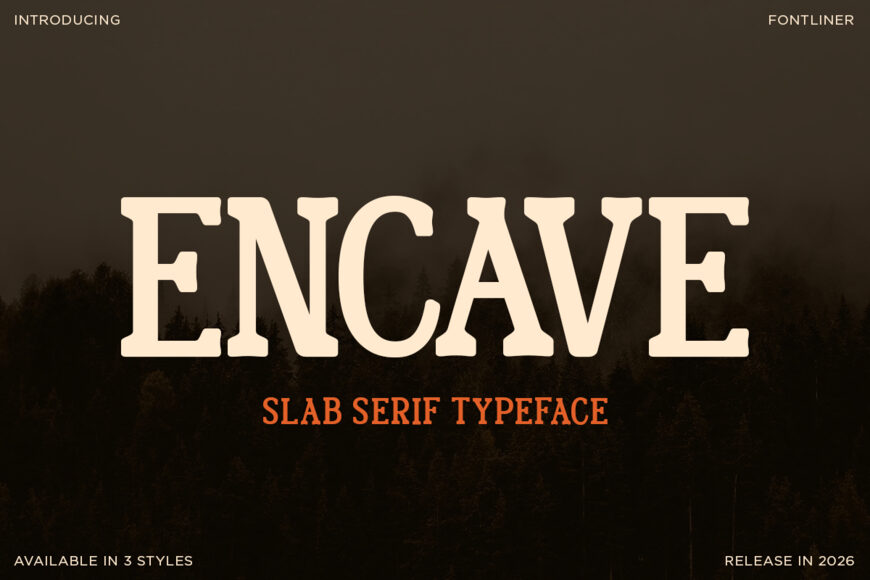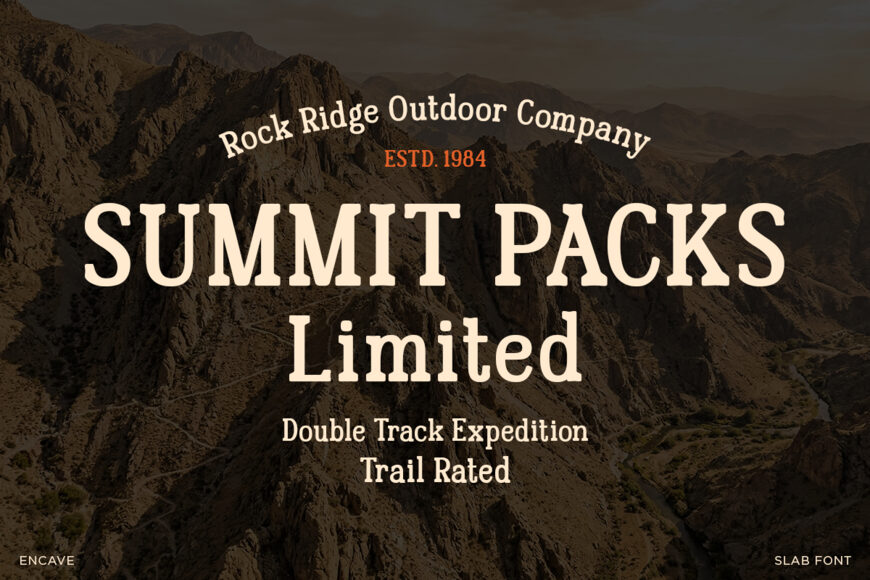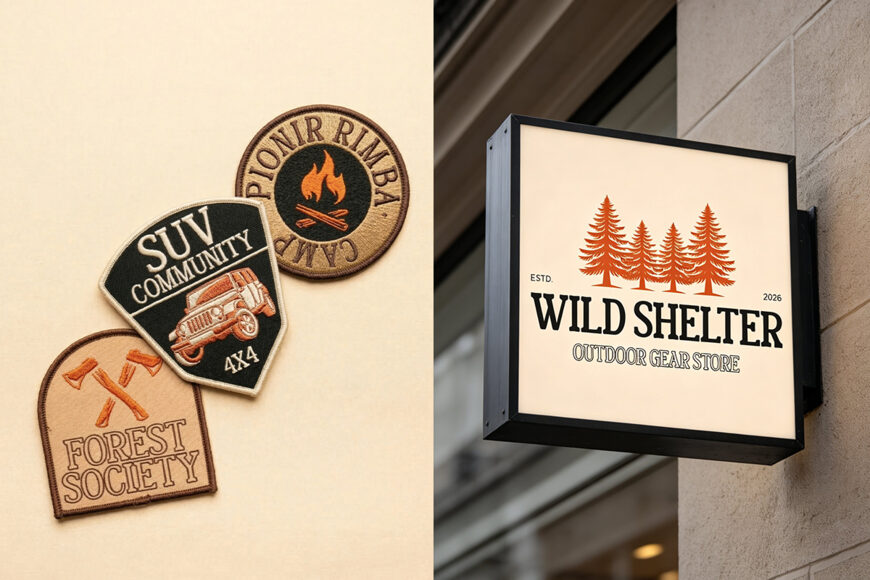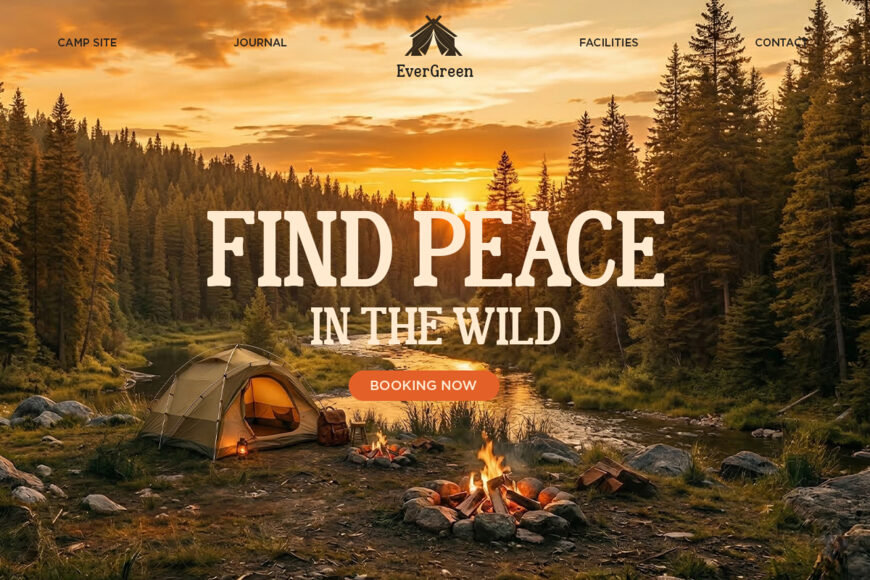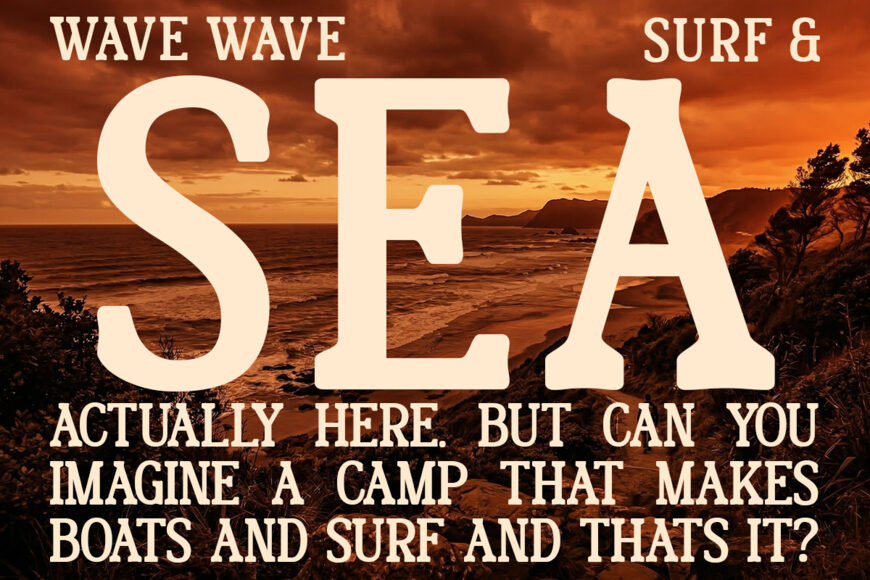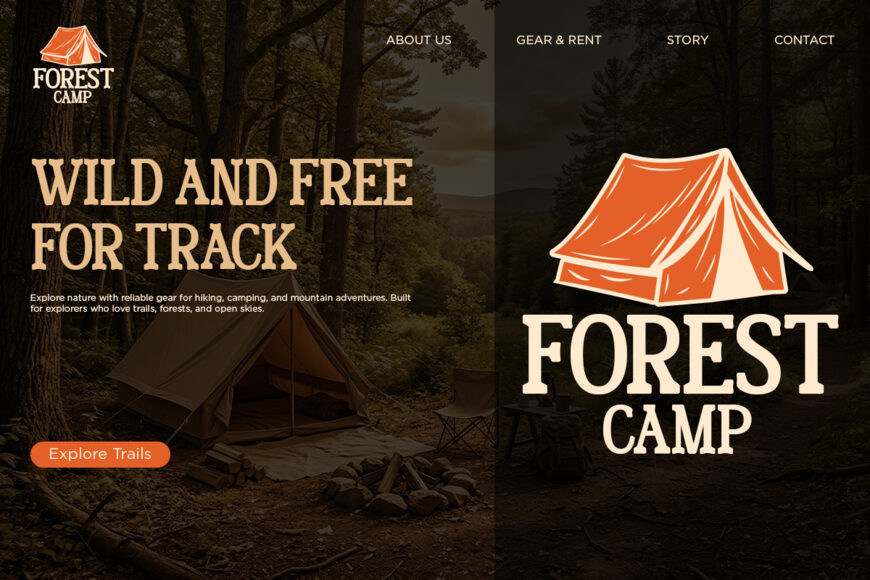
Encave Font
Encave is a bold slab serif typeface that blends rugged character with modern structure. Built for impact, Encave performs exceptionally well in branding, posters, headlines, and packaging.
Whether you’re creating outdoor-themed visuals, vintage-inspired layouts, or bold modern identities, this typeface adapts effortlessly. It carries a masculine, solid tone while still offering enough refinement for versatile creative use.